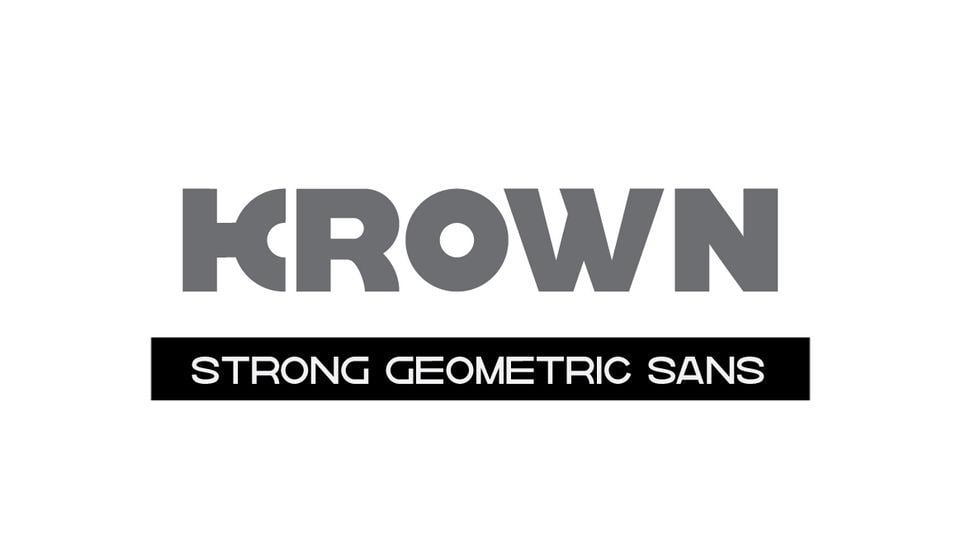
Krown Font
Introducing the new Krown Sans Serif Font Family is newest geometric Sans-Serif font for a family is easy to use almost anywhere on your website, be it in the header or as smaller text with the Variable concept.
A font with a bold aesthetic that is energetic and youthful, this is an excellent choice for the millennial demographic – which is why it is so well suited to use by digital and creative agencies. This font is free for PERSONAL AND COMMERCIAL USE.
Krown Sans Serif Font